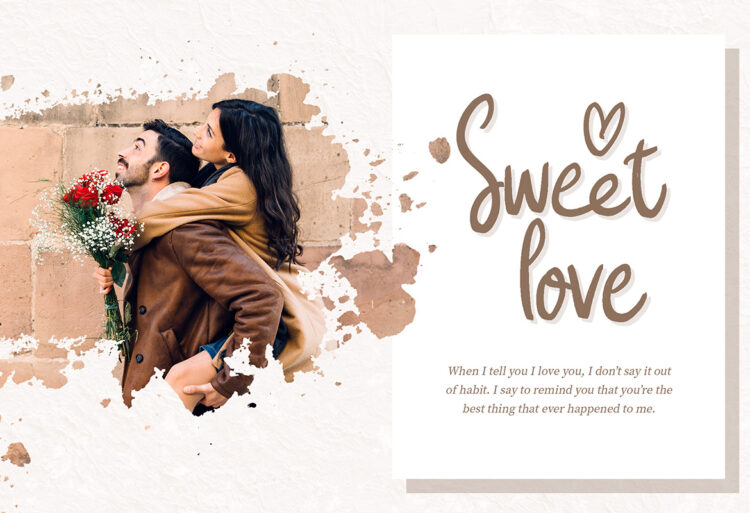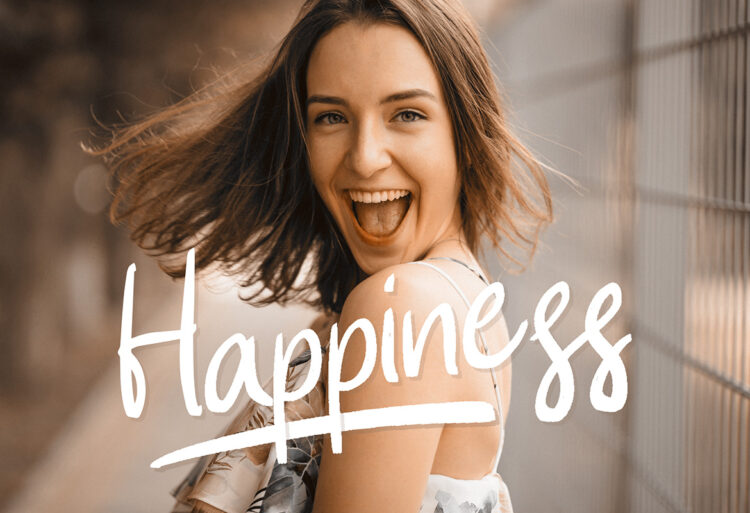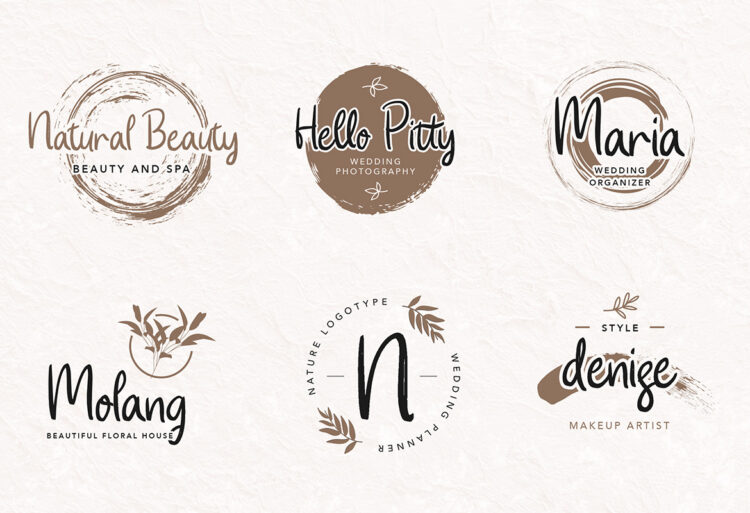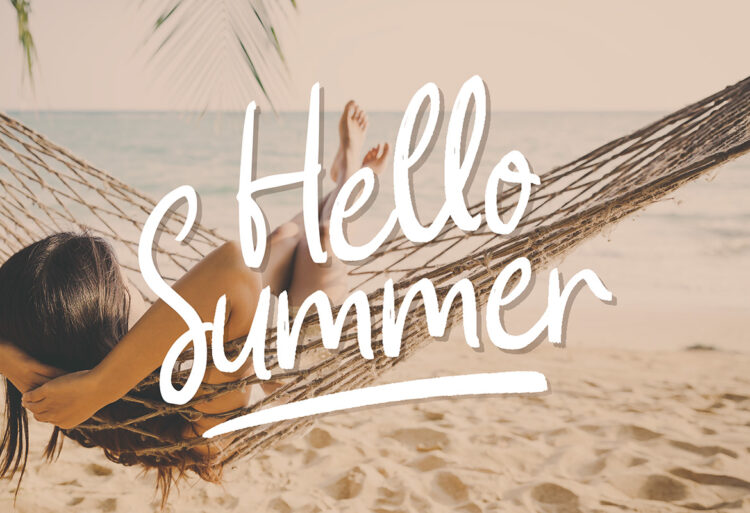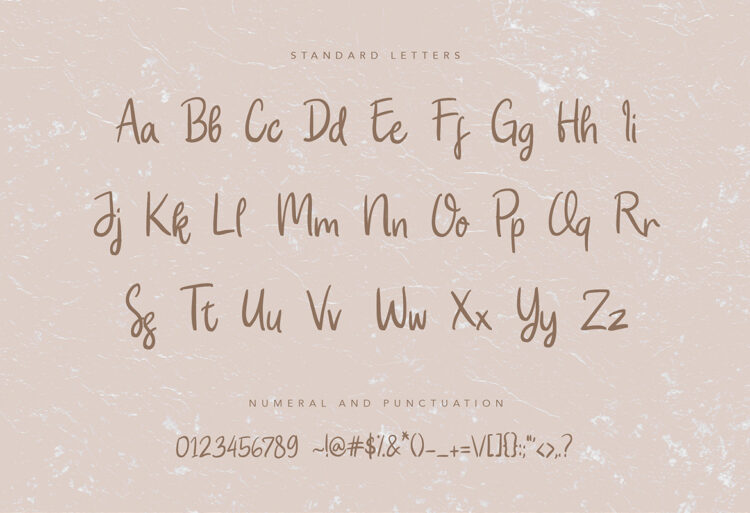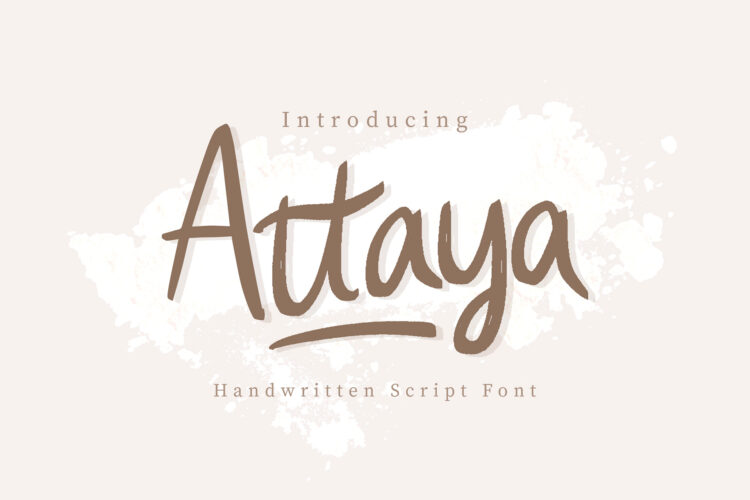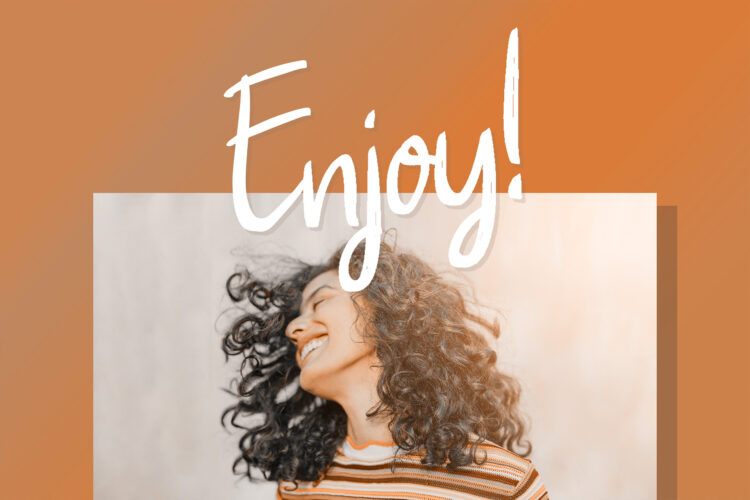
Cheerful, fun and lovely is Attaya Natural Handwritten font that provides a natural feeling for your creative work or displayed text. It is suitable for beauty products, love and nature theme, product packaging, healthy food, logos, brand names, feminine theme – or a stylish text overlay to any background of images. This font also can be applied to fun and semi-formal text.
Attaya Features:
• Font type with fun and lovely character
• Ligatures
• Alternate Fonts
• Numbering and Punctuation
• A set of 26 hand-drawn swashes, the perfect finishing touch to underline your Attaya text. Simply install this as a separate font, select it from your font menu and type any a-z character to create a swash.
Attaya Natural Handwritten Font